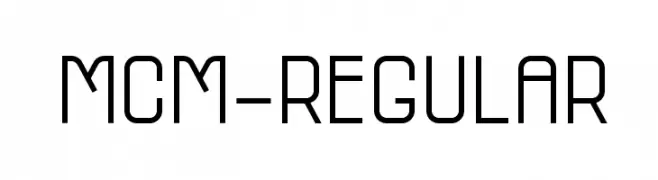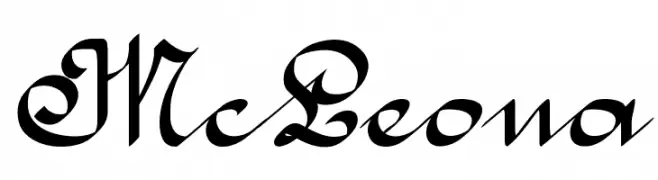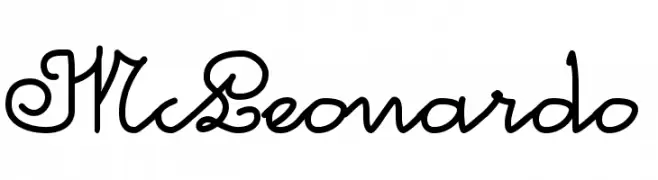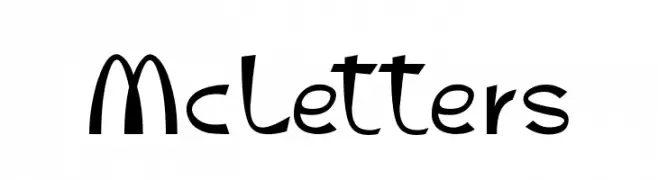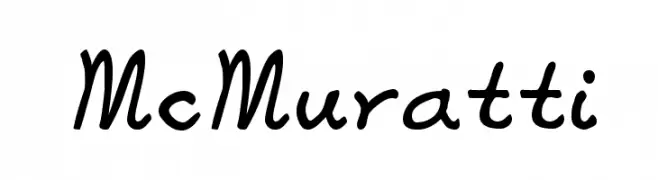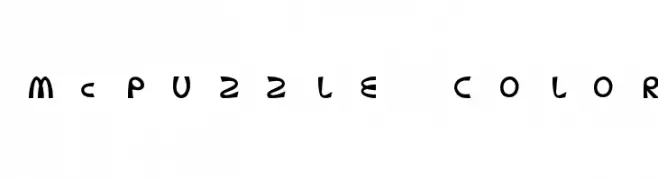
( Murat Yegul - www.formatltd.com )
A bold, elegant script font with flowing, cursive strokes and intricate detailing.
( Murat Yegul - www.formatltd.com )
An elegant, flowing script font with intricate, connected letterforms.
( Jaime Rangel Castro )
A playful and whimsical font with bold, hand-drawn characters.
( Rachel San )
A bold, geometric sans-serif font with a modern and structured design.
( Rachel San )
A modern, geometric font with uniform stroke widths and high legibility.
( Murat Yegul - www.formatltd.com )
A playful, handwritten font with smooth curves and a casual style.
( Edward Leach )
A playful, handwritten font with a casual and friendly vibe.
( Jaime Rangel Castro )
A playful, bold font with rounded, whimsical characters.